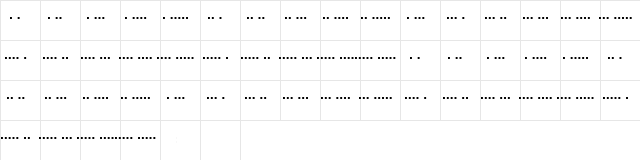
MC morse_Vietnam_POWs_1965 Regular Free Font
MC morse_Vietnam_POWs_1965 Regular
Designer: Marek Cerajewski
Design Context for MC morse_Vietnam_POWs_1965
MC morse_Vietnam_POWs_1965 is a composed and adaptable typeface that performs quietly and consistently across a wide range of design contexts.